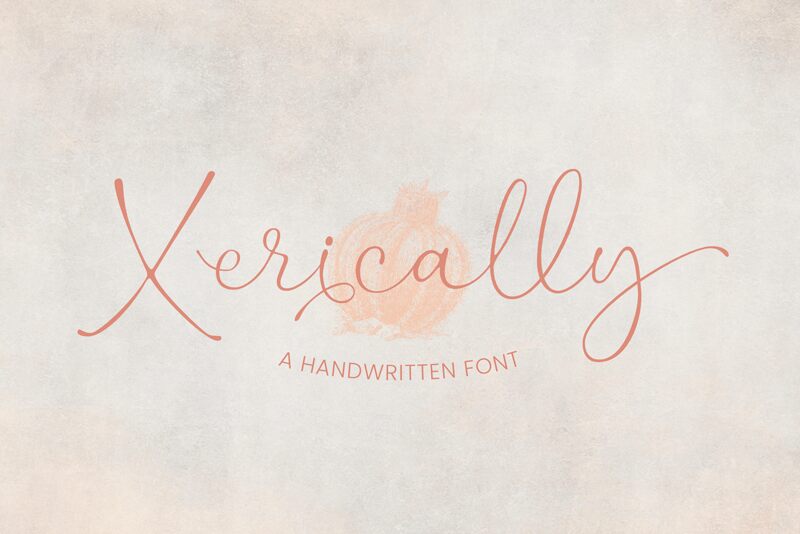
Xerically font is a unique handwritten free font by Niskala Huruf. Like the name suggests, this font represents a free-flowing, smooth, and fluid style, making it modern, elegant, and an instant favorite for designers and calligraphy enthusiasts. Despite its simple informal nature, the high-quality visual appeal of this single-font family can decorate your various design works with an artistic touch.
Diverse design projects like poster, booklet, greeting card, or invitation card can benefit from this well-scripted font. It looks as well in a logo, packaging, social media, branding, or advertising project.